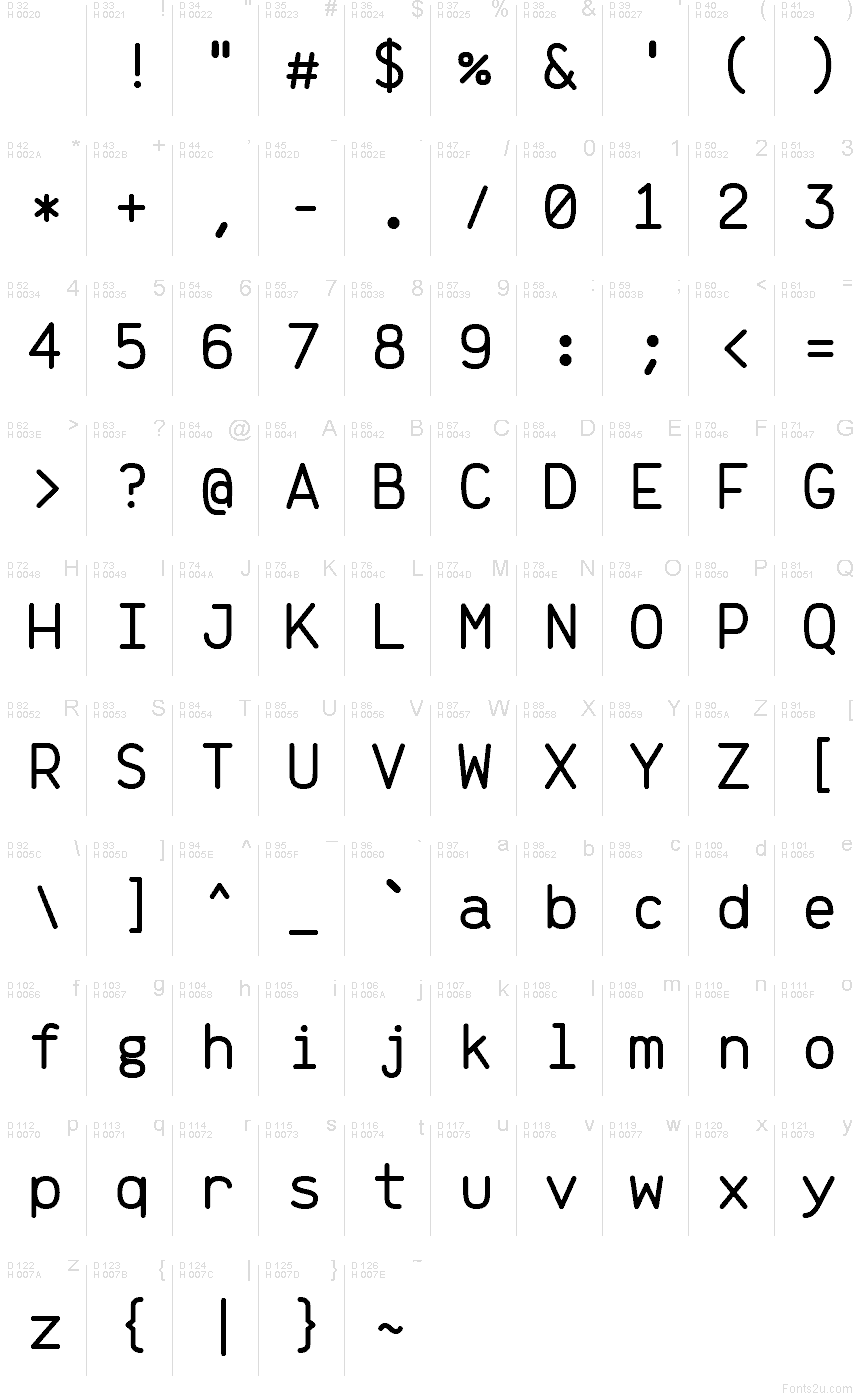
Brass Mono Regular
Brass Mono font by The Brass Mono Project Authors is a free fixed-width typeface that makes monospaced feel unusually friendly. Its strokes are clean and even, with softly rounded corners and generous spacing that keeps the word shape calm instead of clattery. The overall look is crisp, modern, and a touch “hardware”—like fresh vinyl lettering on a well-made device.
Using Brass Mono, you’ll get steady rhythm on code snippets, terminal-style UI, developer docs, data tables, tech posters, product labeling, and minimalist branding. Set it a bit larger to let the rounded shapes breathe, then pair it with a neutral sans for body copy to keep layouts from feeling too rigid. This free font stays readable while still having a clear point of view.
A free retro monospaced font inspired by 20th century electrical and mechanical design. It's open source and a solid choice for writing code.